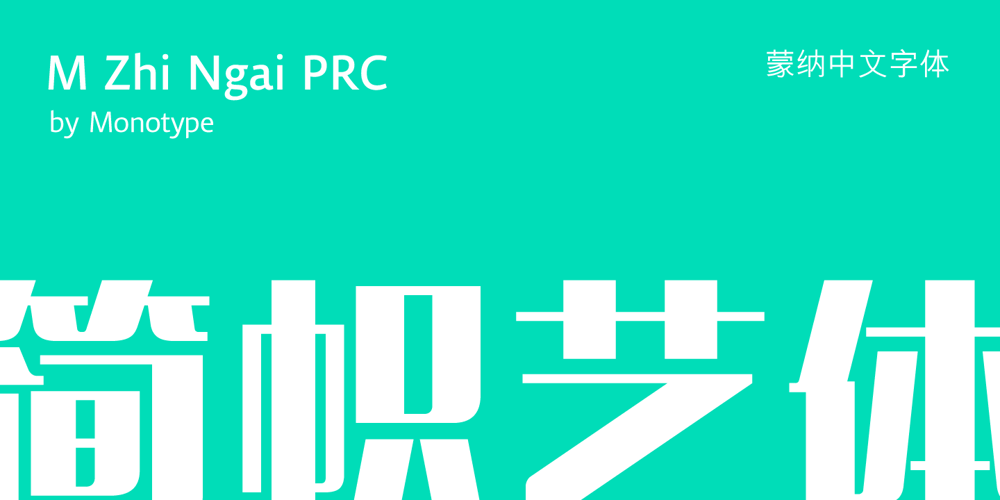
M Zhi Ngai PRC Font Family was designed by Monotype HK Design and published by Monotype HK. M Zhi Ngai PRC contains 1 styles and family package options. Zhi series is inspired from vertical shop banners/signages from Japan, where each banners is attached to a slim simple structured skeleton. M Zhi Ngai™ takes reference from M Zhi Hei’s straightforwardness and masculinity but inserted plenty of ornaments and gentleness. Featuring a strong thick–thin contrast in the strokes, the typeface looks bright, smart and contemporary, suitable for promotional materials and more other media.